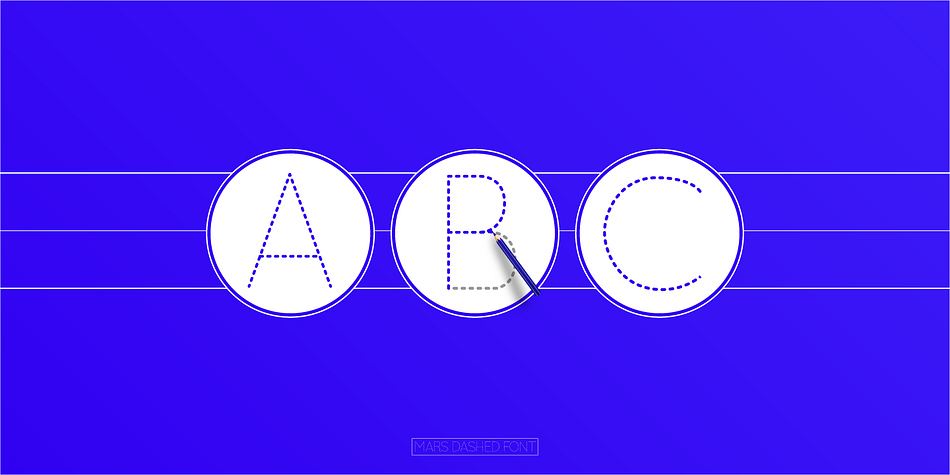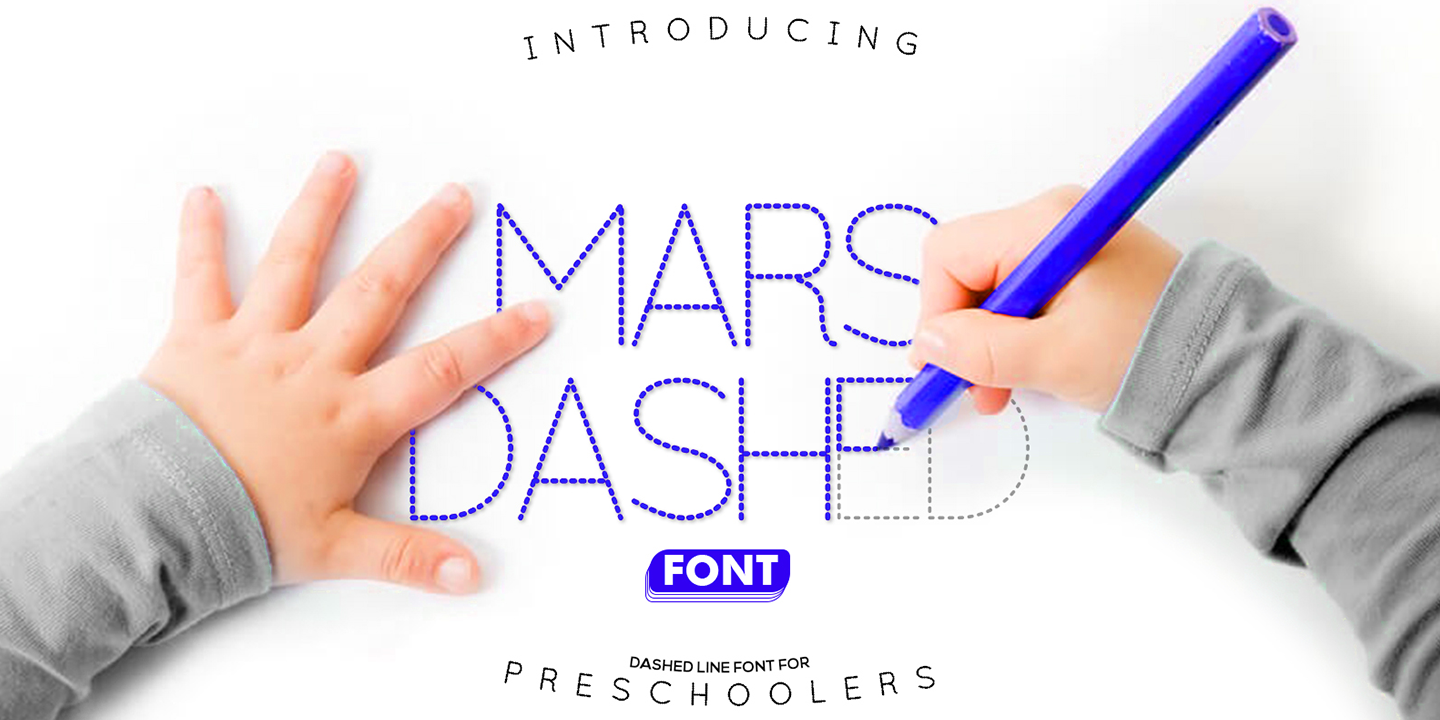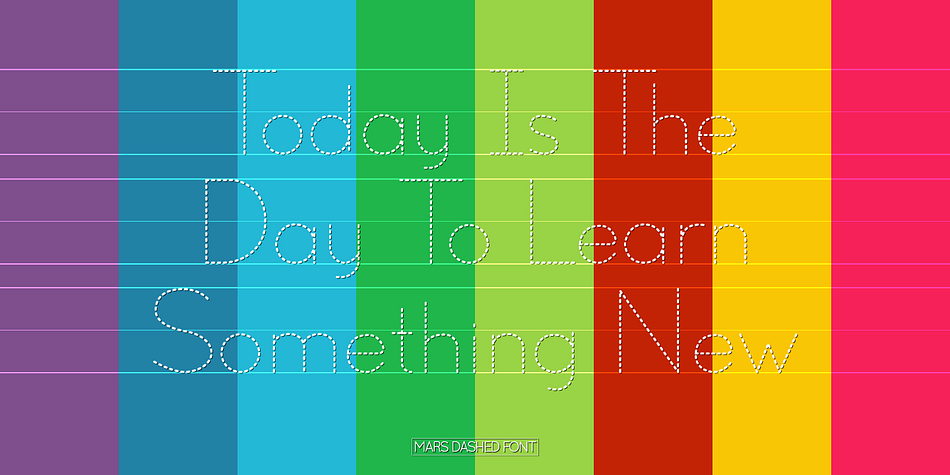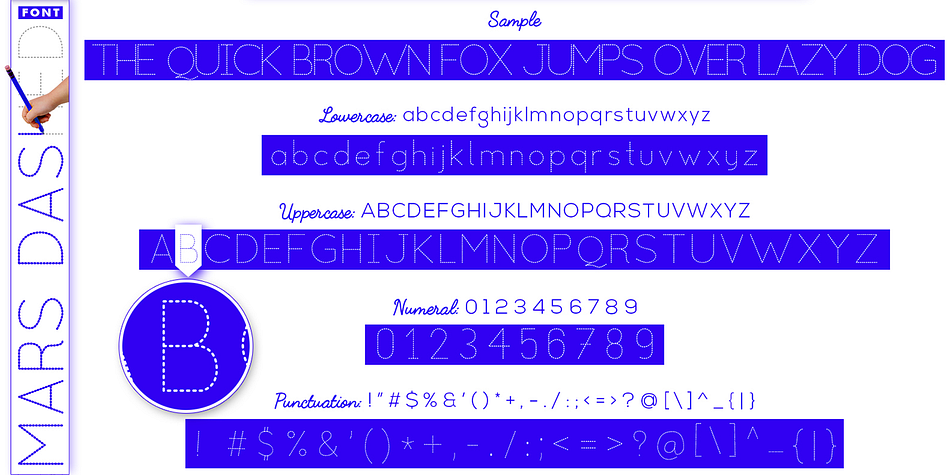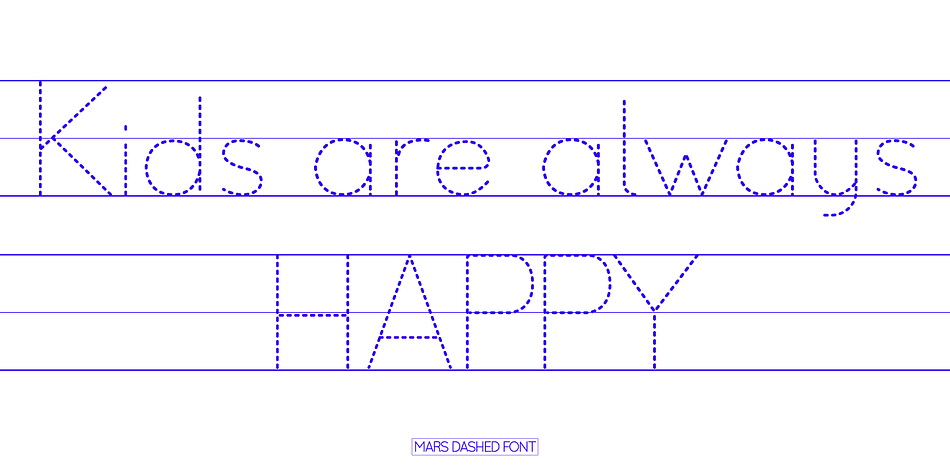
Mars Dashed
Designed by Mohammed Lamjidi, Mars Dashed is a display font family published by Beast Designer.
Mars Dashed Font is an incredibly unique and interesting display font, created from tiny little dashes. Add it to your portfolio of fonts and it will soon become your favorite option, no matter the design!
Designer Mohammed Lamjidi